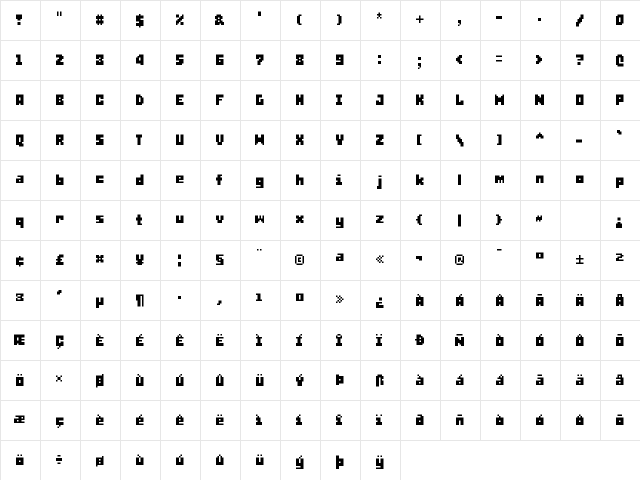
Bitrimus Medium Free Font
Bitrimus Medium
Complete Bitrimus Medium glyph index. Displaying only characters natively supported by Bitrimus Medium font.
Design Context for Bitrimus
Bitrimus is a composed and adaptable typeface that performs quietly and consistently across a wide range of design contexts.